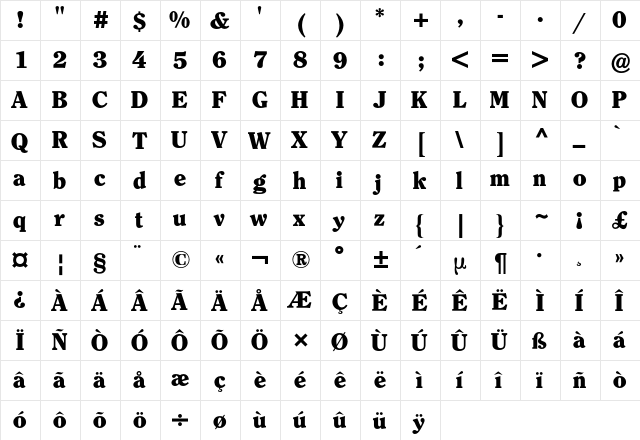
Clearface ITC BQ Regular Font Preview
Clearface ITC BQ Regular
Design Context for Clearface ITC BQ Typeface
Clearface ITC BQ takes a measured approach to typography — its balanced proportions and neutral character make it a reliable workhorse for both digital and print work.